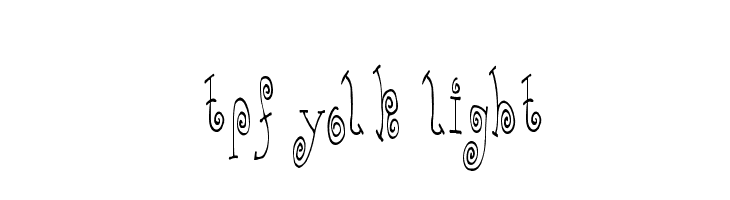
A whimsical, curly font with playful, spiral embellishments.
A whimsical, curly font with playful swirls and loops, perfect for creative projects.
A whimsical and playful font with spiral and curly motifs.